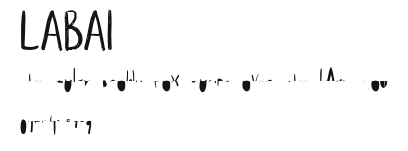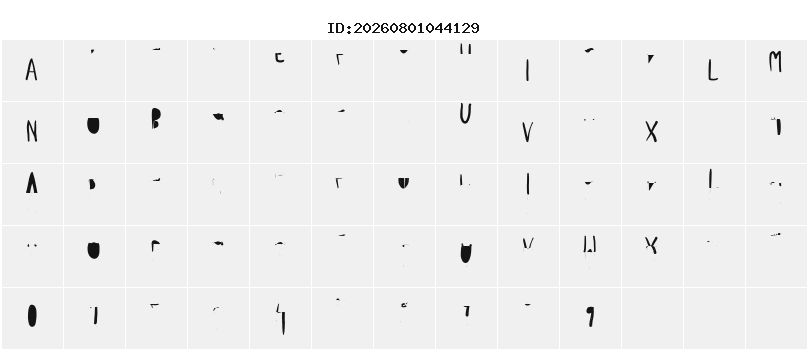
Labai Preview
• Font Name: Labai
• Full Font Name: Labai
• PostScript Name: Labai
• Manufacturer: PatchPo
About Labai.ttf
Labai.ttf is a modern, elegant sans-serif font designed for ultimate readability and visual harmony. Perfect for branding, headlines, web design, and print materials.